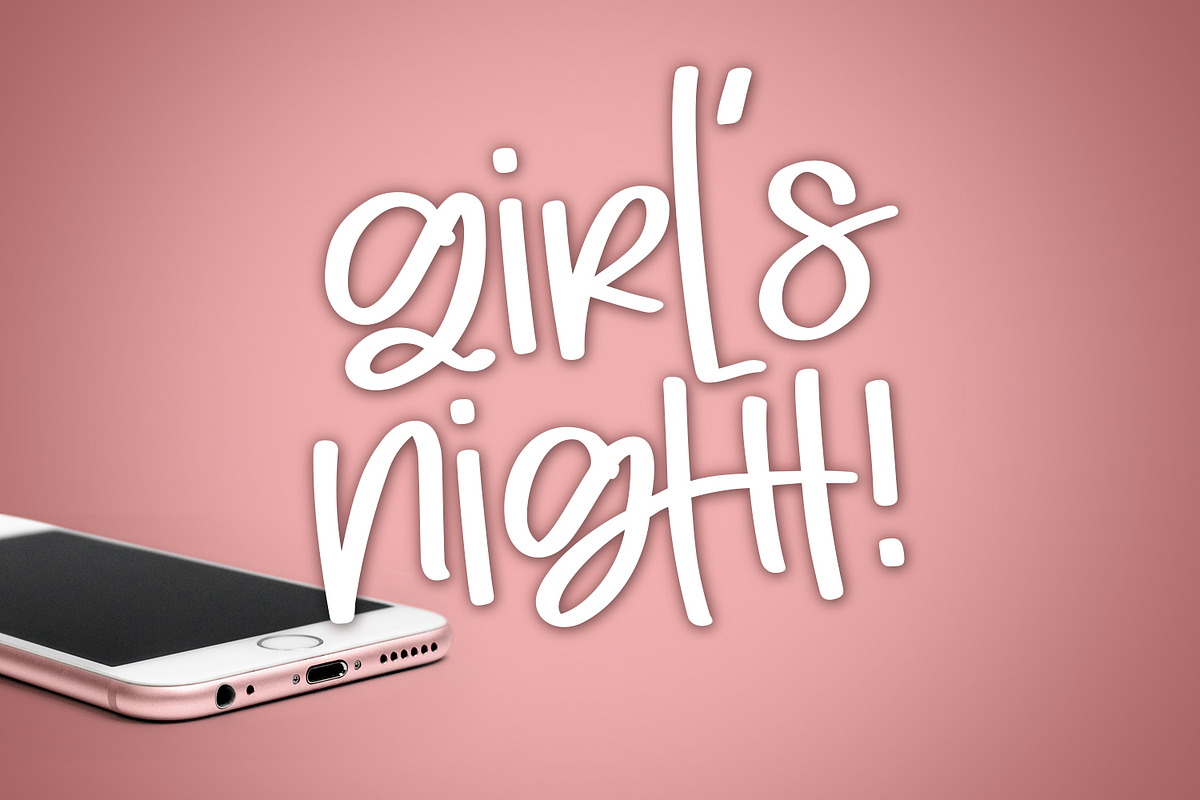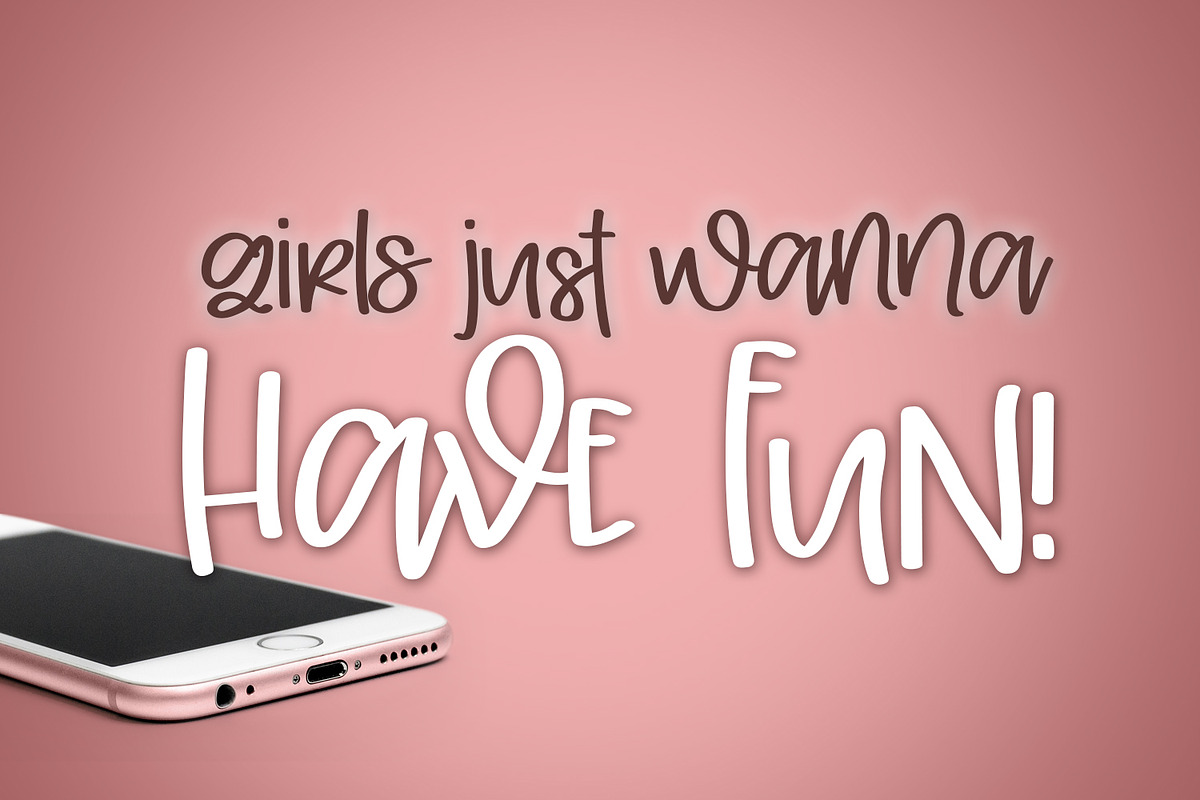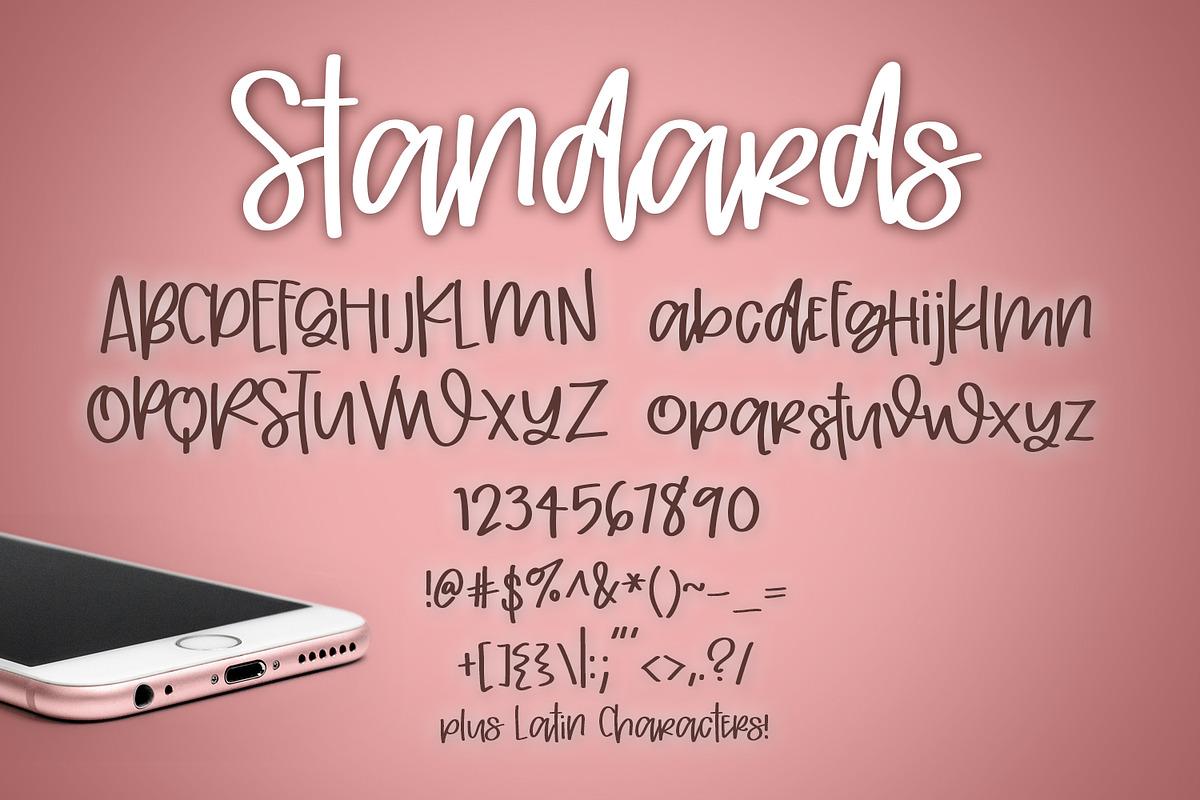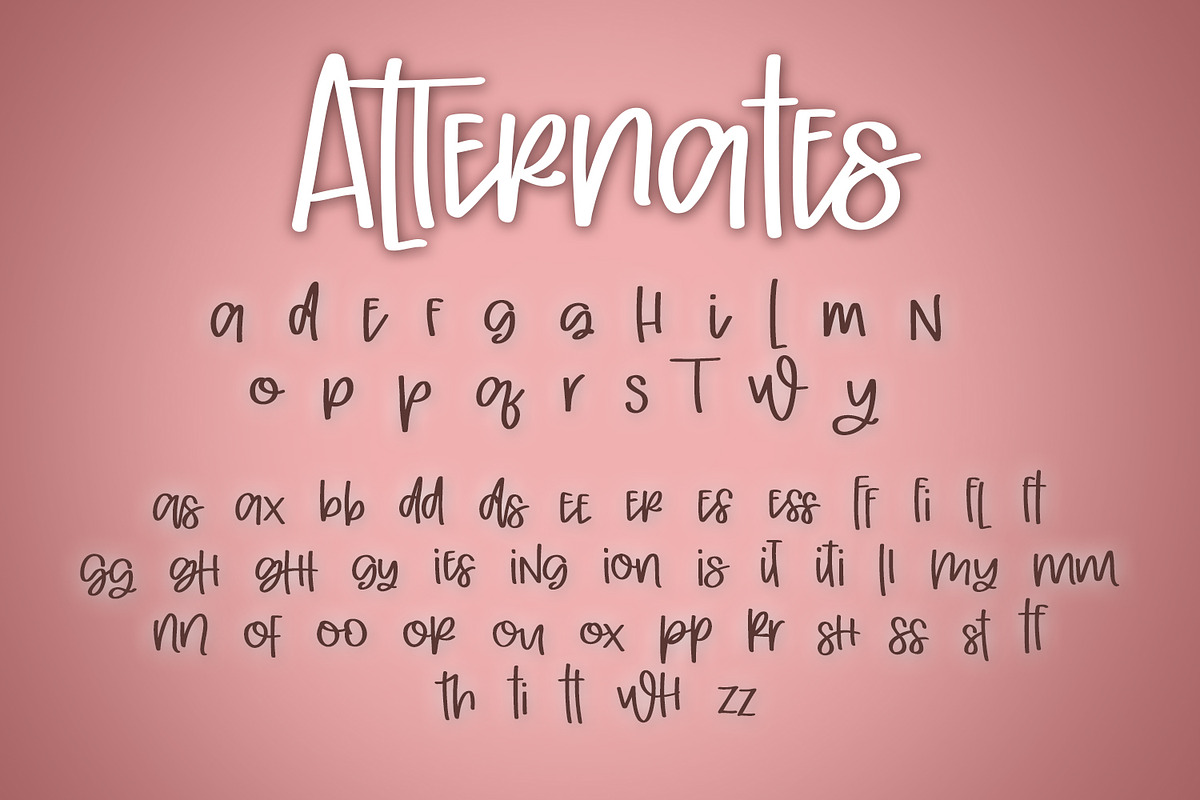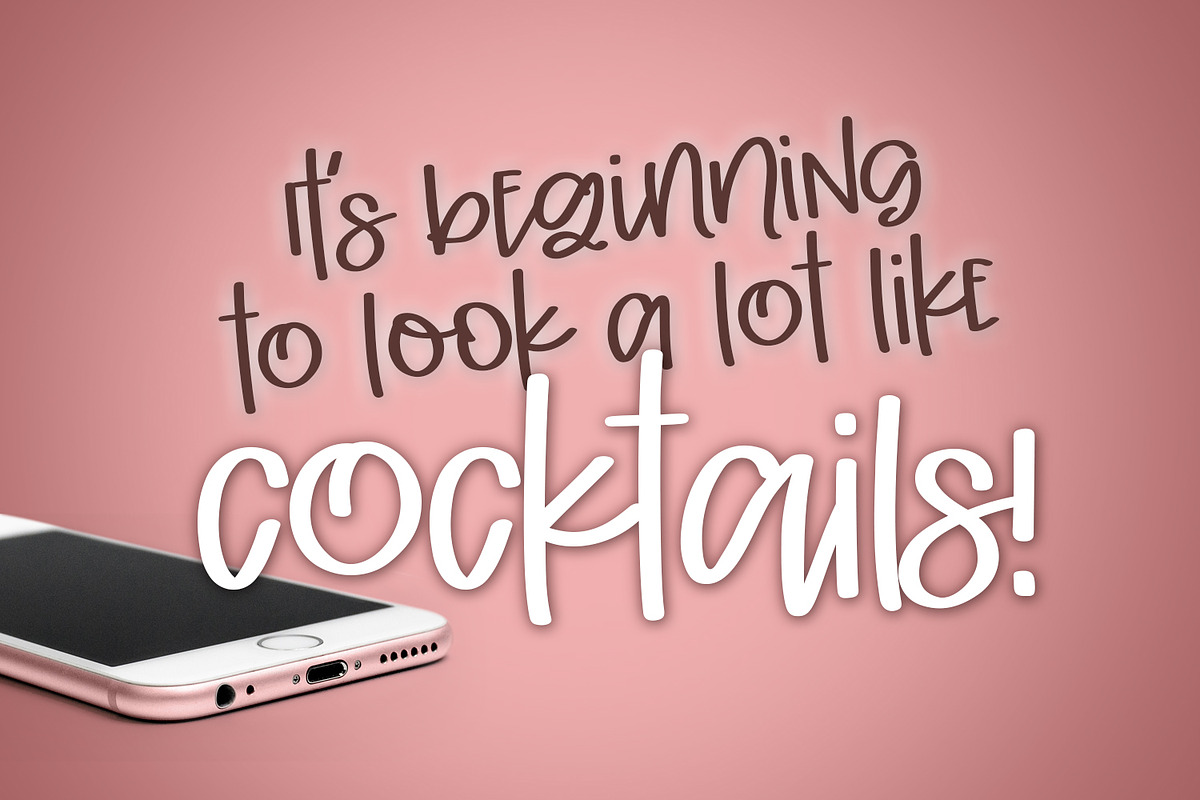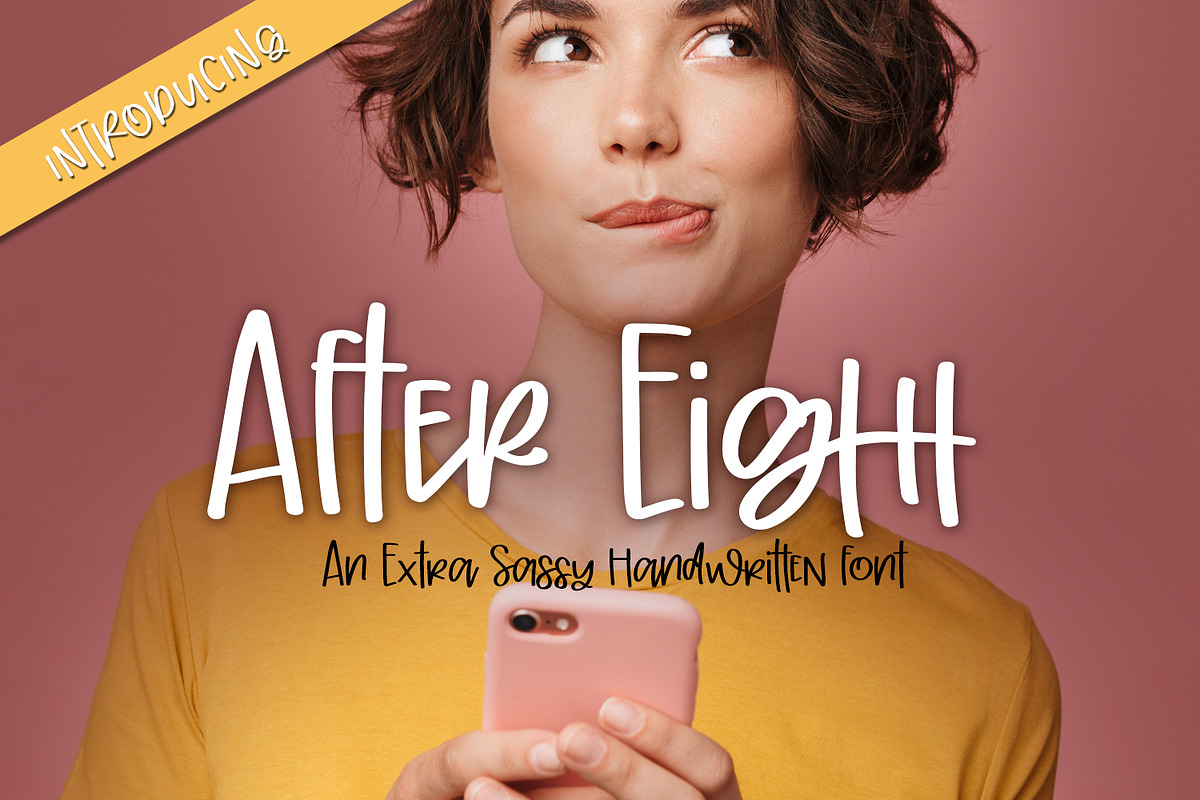
After Eight Font
An extra sassy handwritten font with alternates!
• Latin characters included
After Eight Font by A Little Smidge fits naturally into Branding, posters, packaging, typography.